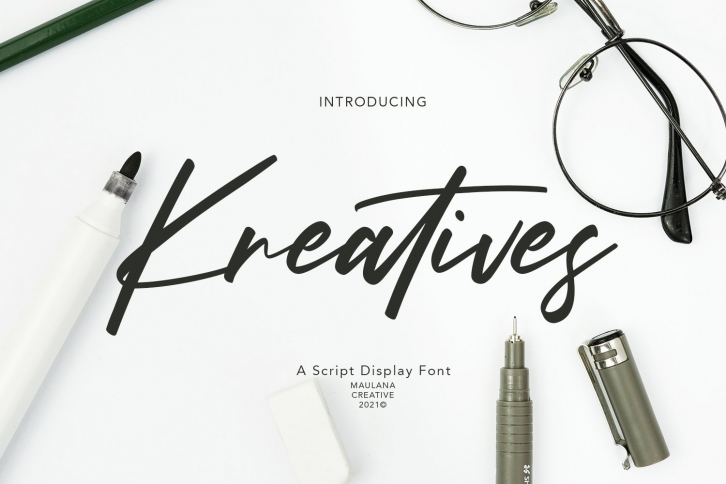
Kreatives Script Display is a great font that was designed by Maulana Creative. Imagine the amount of combinations you can create using this font! The archive is 8.22 MB and it was released on June 21, 2021. Kreatives Script Display looks beautiful on wedding invitations, greeting cards, logos, posters, labels, t-shirt designs, logos, business cards and is perfect for use in ink or watercolor works, fashion, magazines, packaging and food menus, children's books and more!